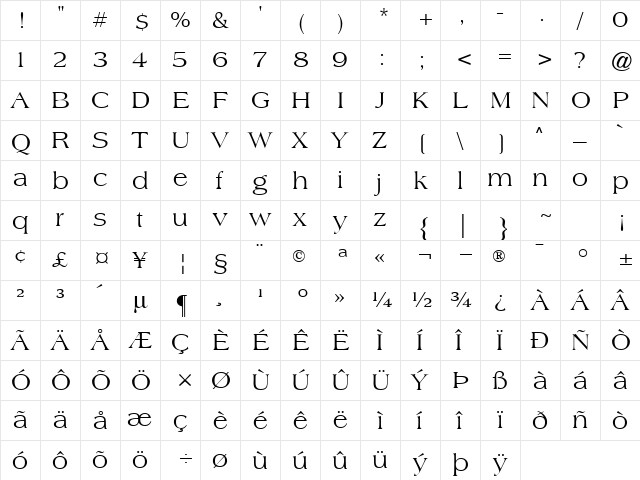
American Classic Regular
Design Context for American Classic Typeface
American Classic has the warm character of retro typography — evoking diners, record sleeves, and the golden age of print advertising.
Font Pairing: Combine American Classic with a simple slab or neutral sans — period-accurate companions reinforce the vintage feel without competing for attention.
Pro Tip: Lean into American Classic's period character by pairing it with aged paper textures, muted colour palettes, and vintage illustration styles.